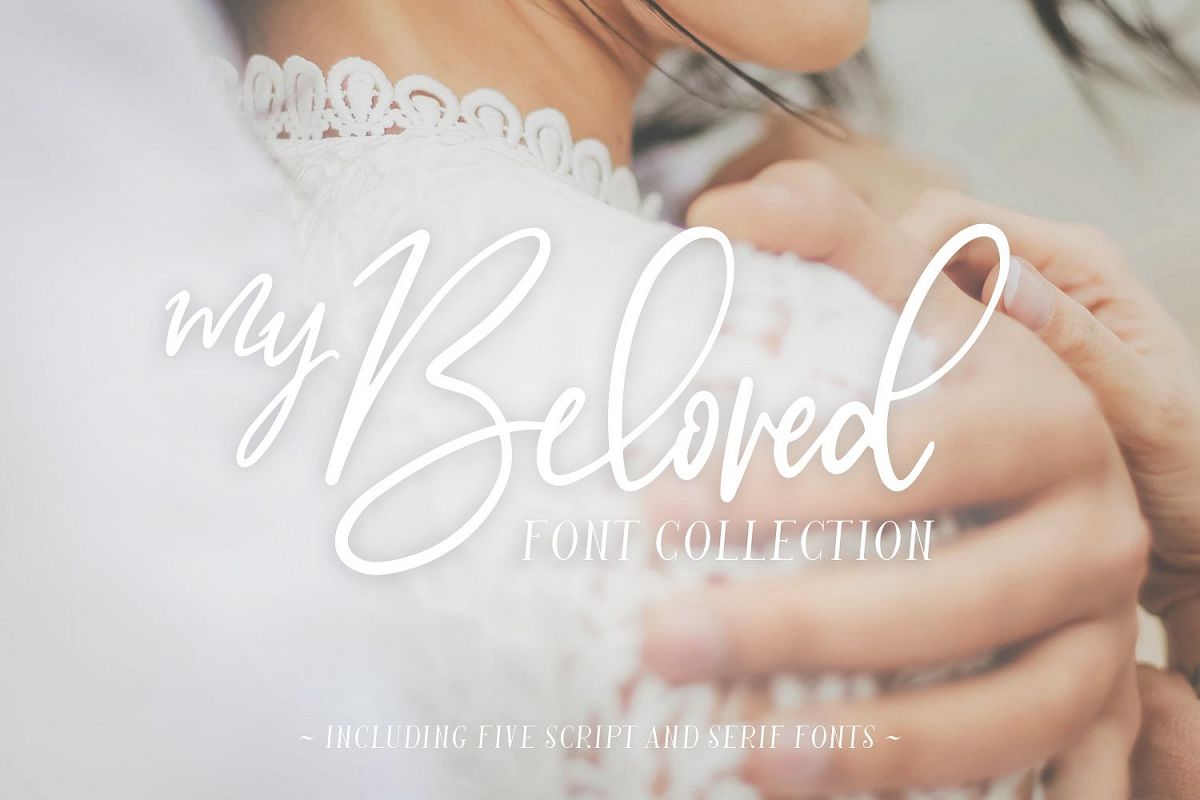
My Beloved Script & Serif Font
Introducing the My Beloved Font Collection, elegant fonts with a romantic modern touch to it. My Beloved is a sophisticated script and serif font that's really charming to combine together. It can be used for logo's, tote bags, cards, wedding designs, and ofcourse much more. It contains ligatures and alternatives to finish it off and give it a unique style.
My Beloved Regular. ~ A gorgeous script font, that has lots of ligatures and alternates. Really cute and pretty to combine with the Serif font.
My Beloved Alternates. ~ For your convenient, I've created a seperate font with the alternates in case you can't access the glyphs panel.
My Beloved Serif. ~ A Classy Serif font that really compliments the script font.
My Beloved Serif Italic. ~ The italic serif font looks just a little more classy.
My Beloved Swashes, 36 swashes to combine with your texts.
Multilingual
Both fonts, The Line and Regular Script font are multilingual. They contain the following characters in upper- and lowercase.